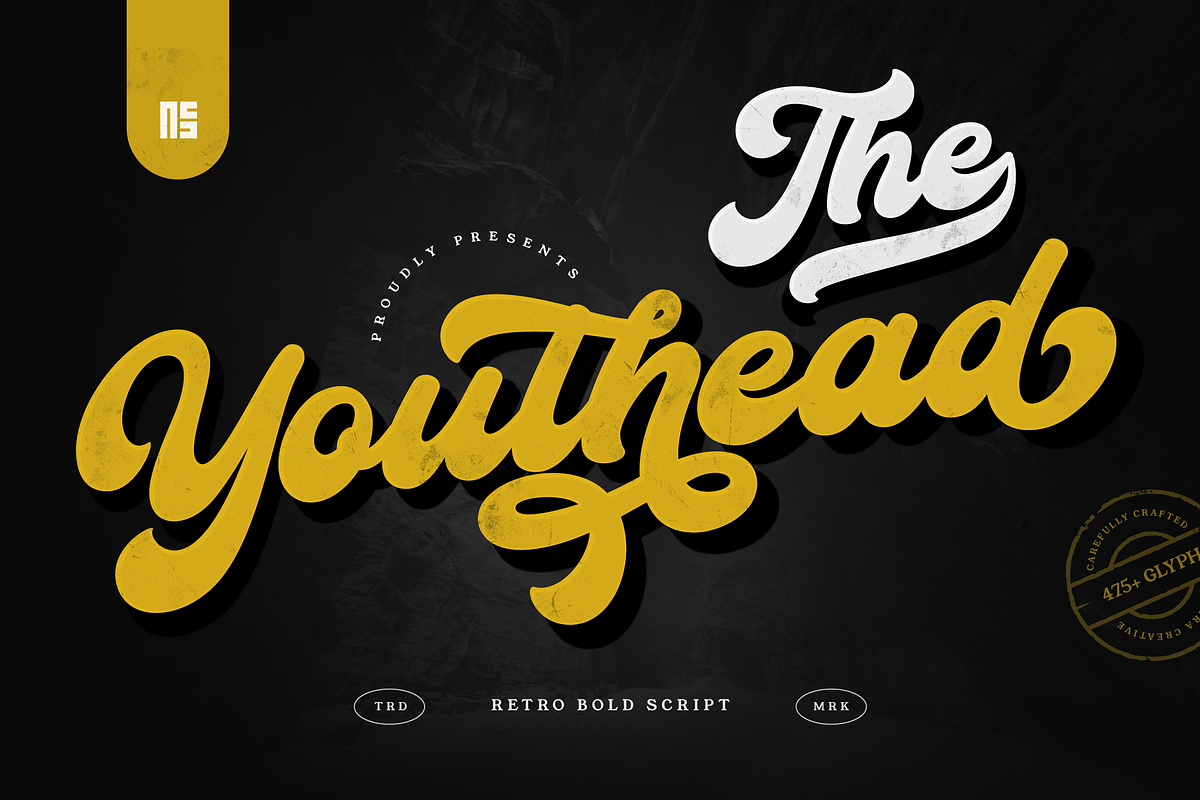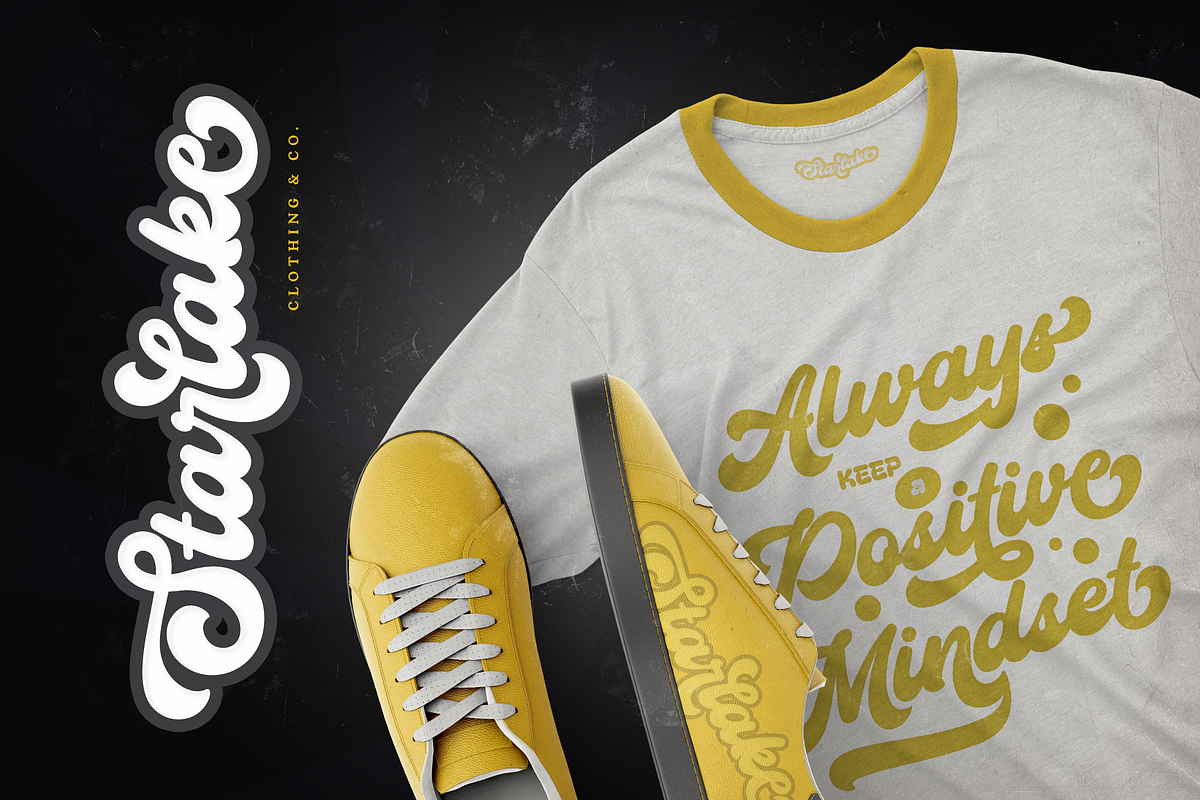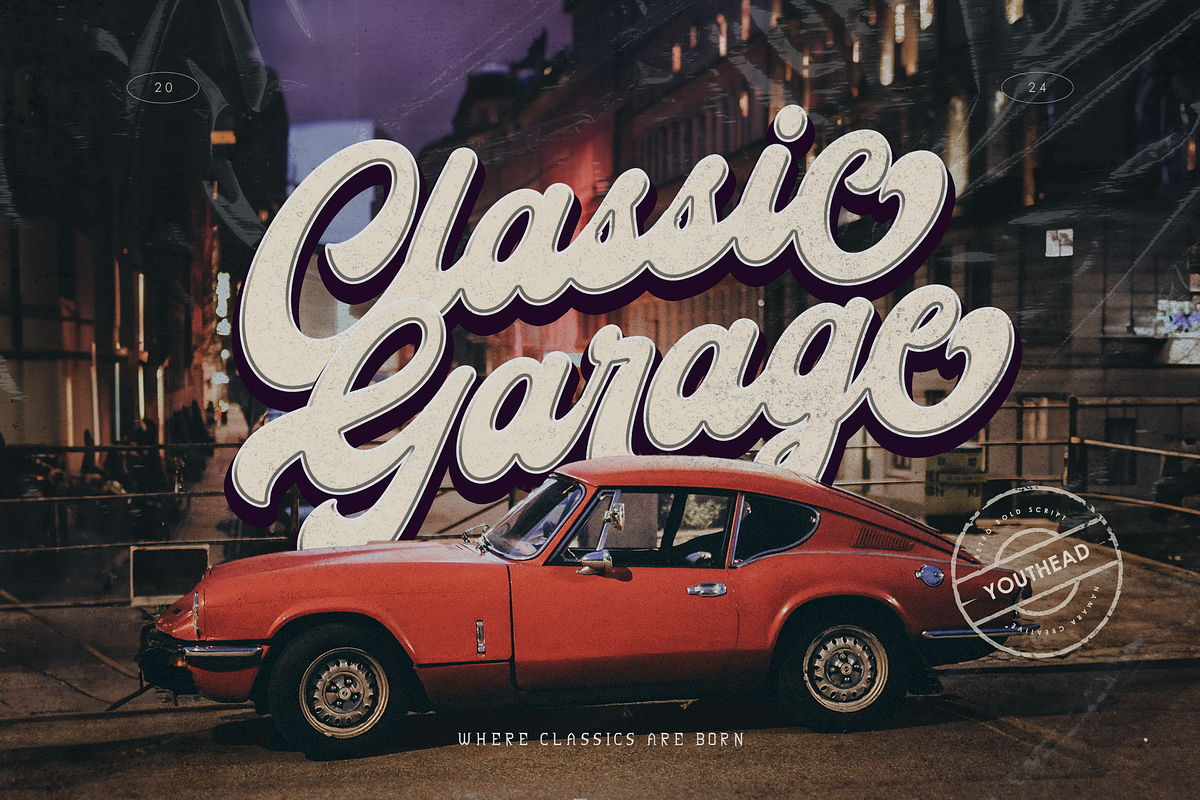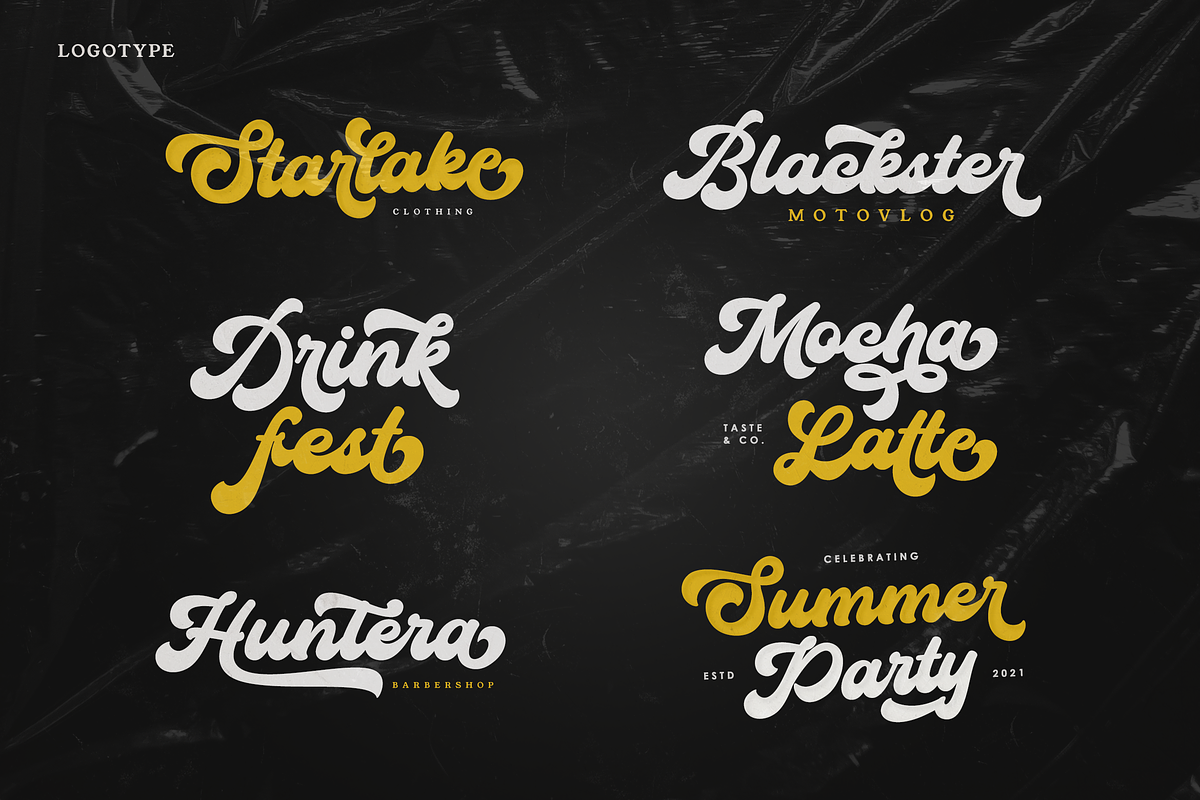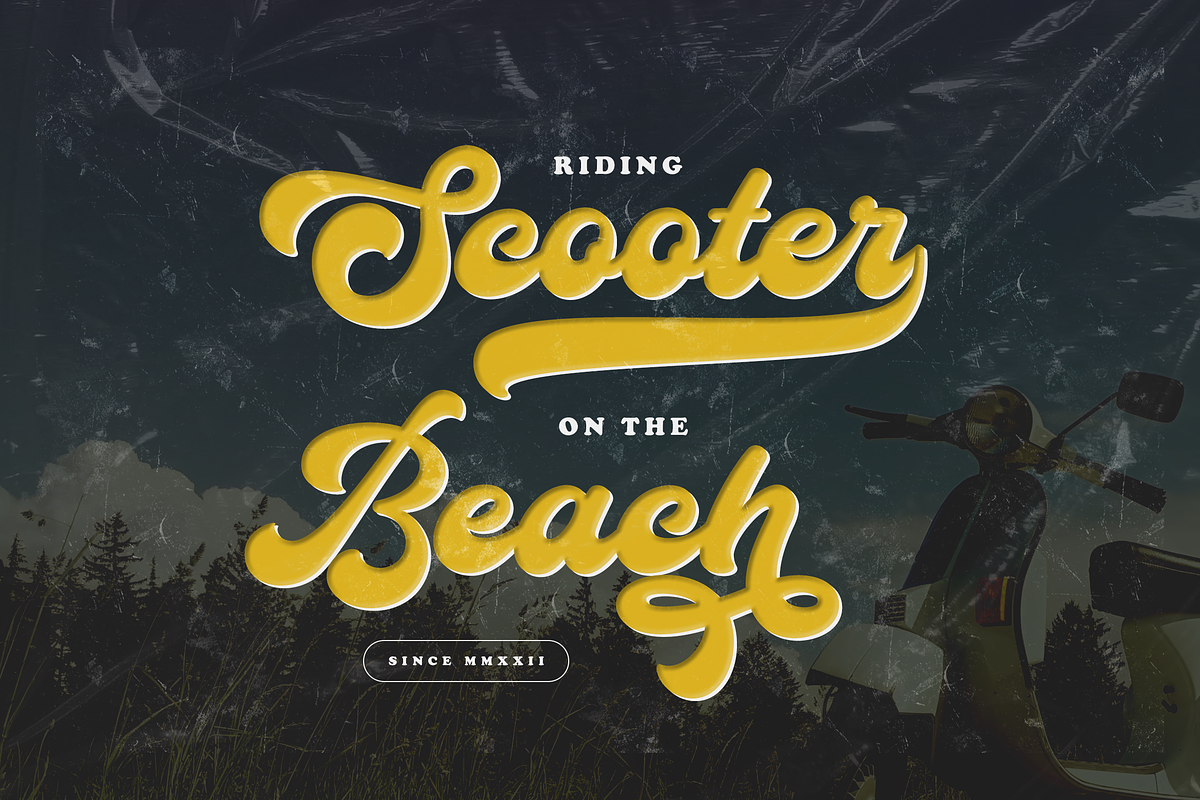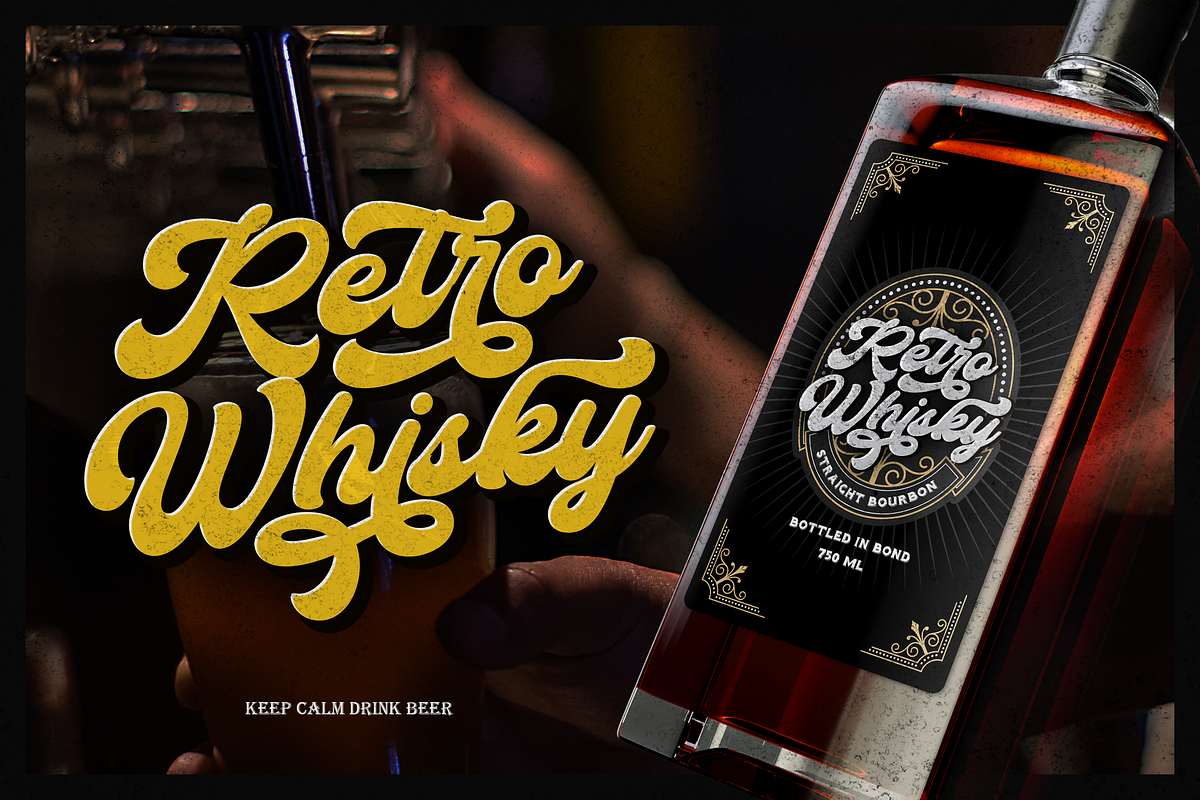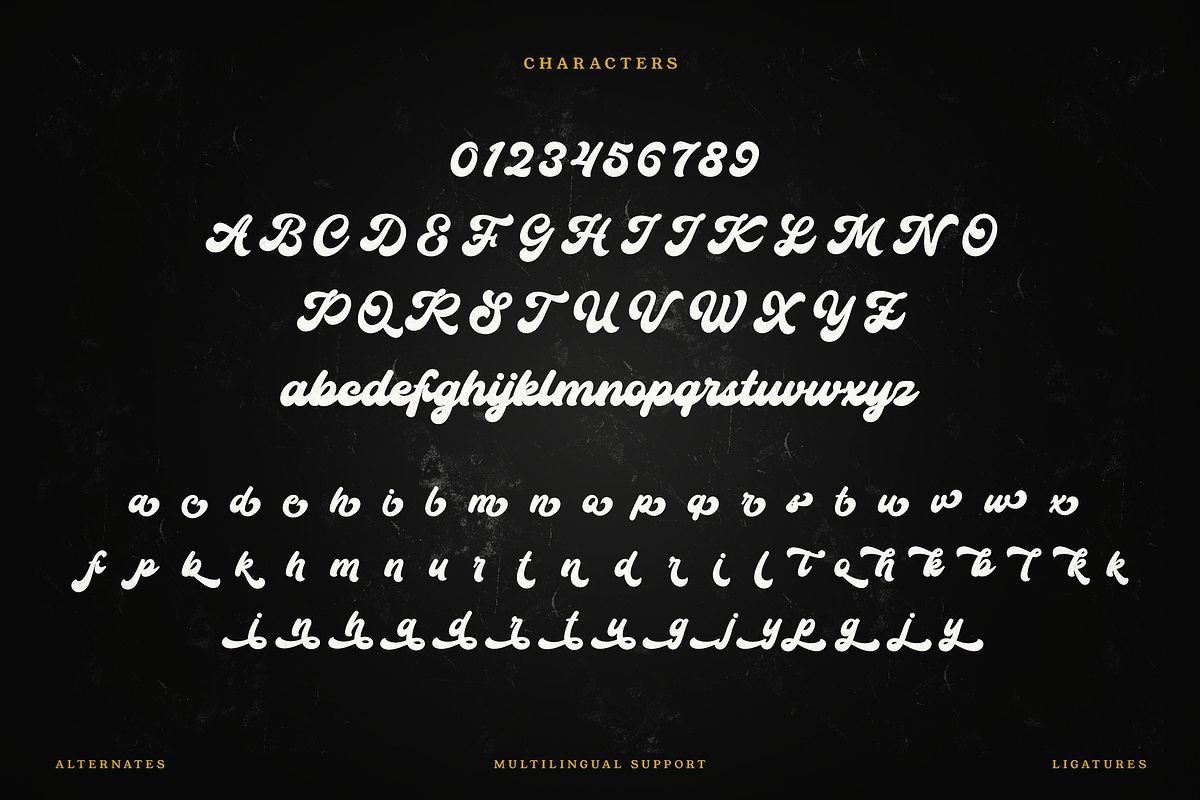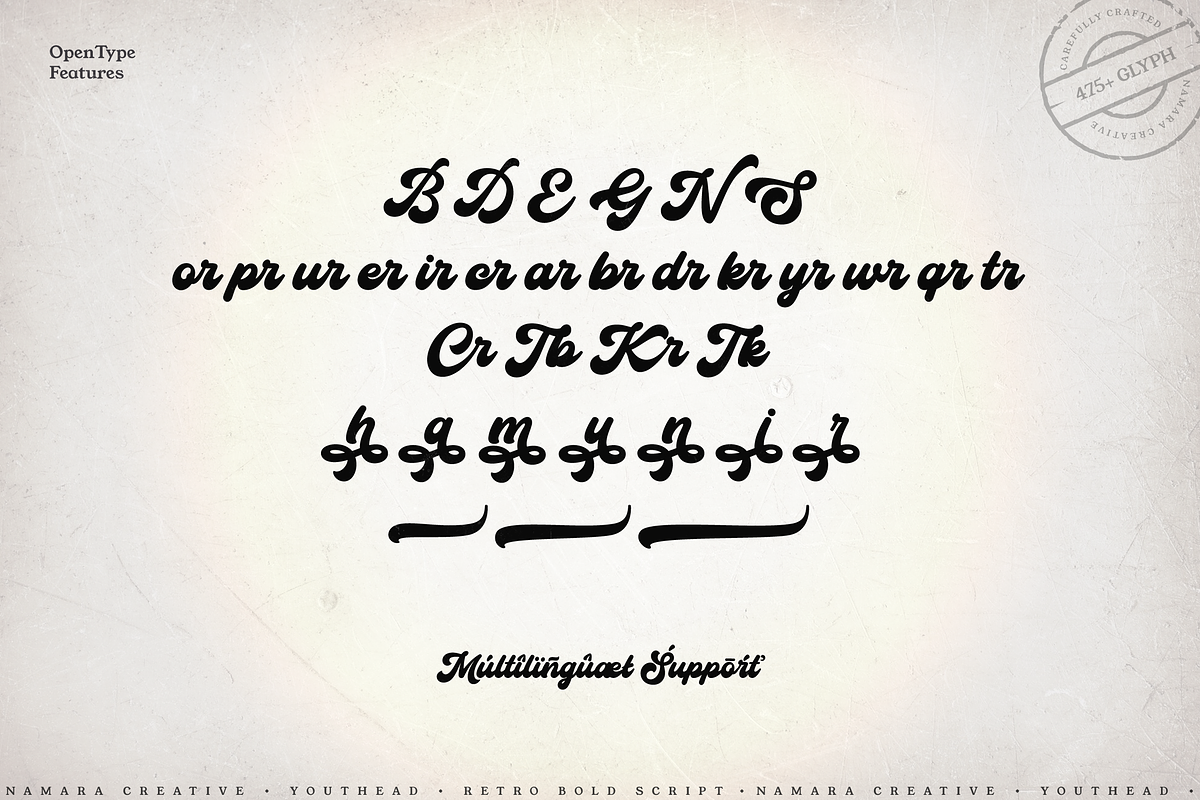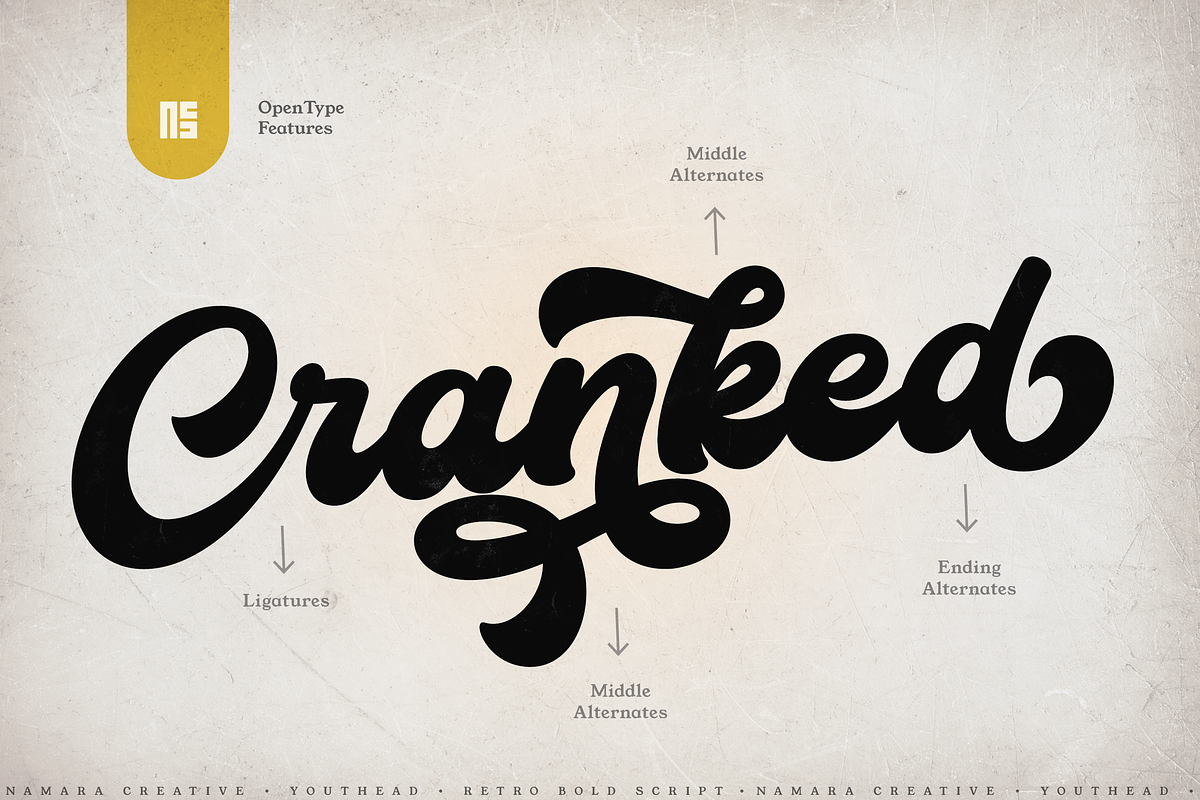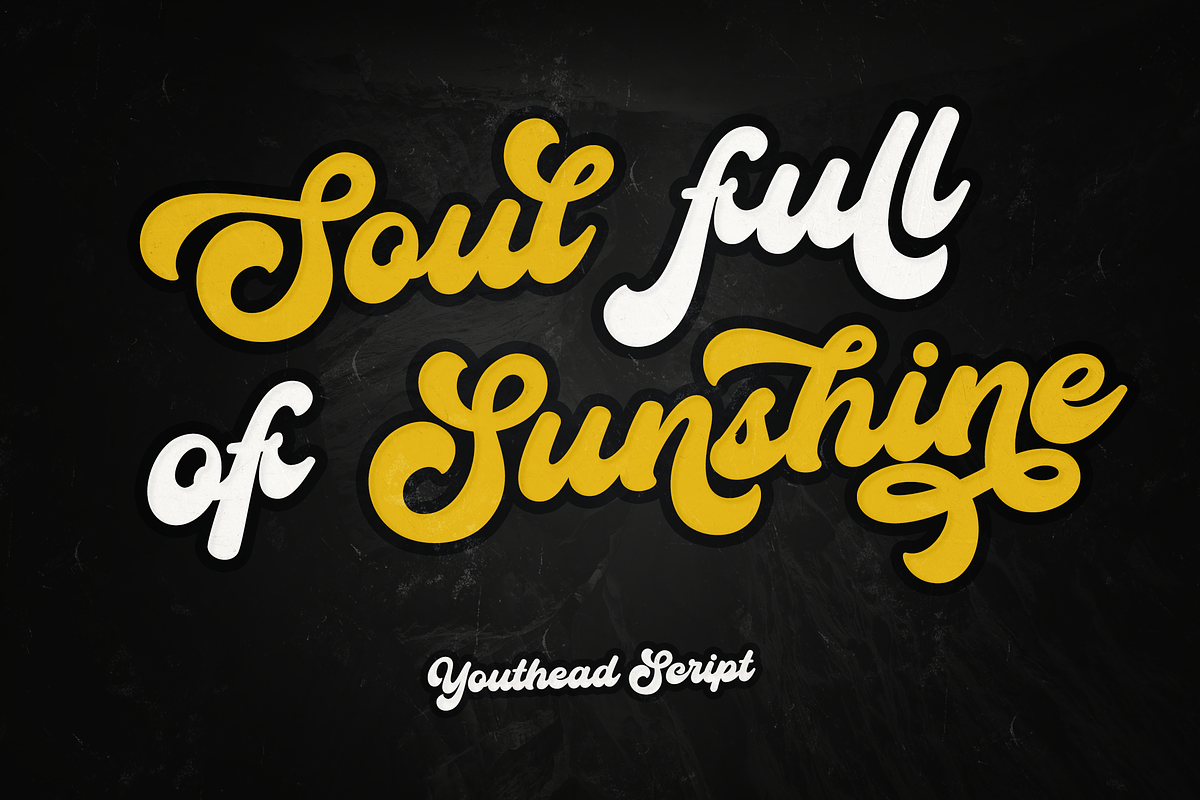
Youthead - Retro Bold Script
Retro Bold Script Typeface, The perfect blend of vintage charm and contemporary elegance. These fonts are designed to make a statement, combining the nostalgic essence of mid-20th-century typography with a fresh, modern twist.
Transform your designs with our retro bold script font. Make your project memorable and stylish with the unique charm of retro-modern typography.
- Full set of standard characters and punctuations.
- Alternates, ligatures, swashes and multilingual support.